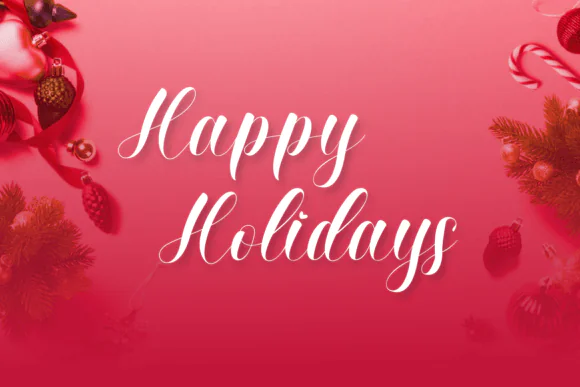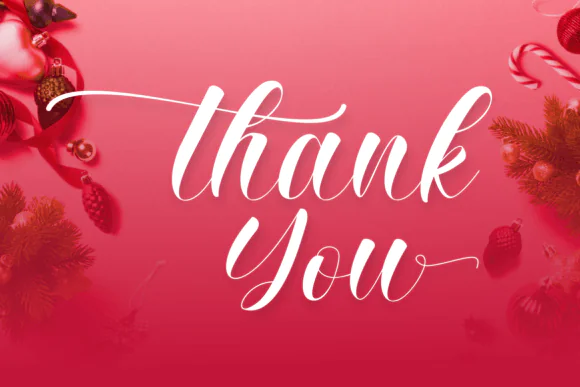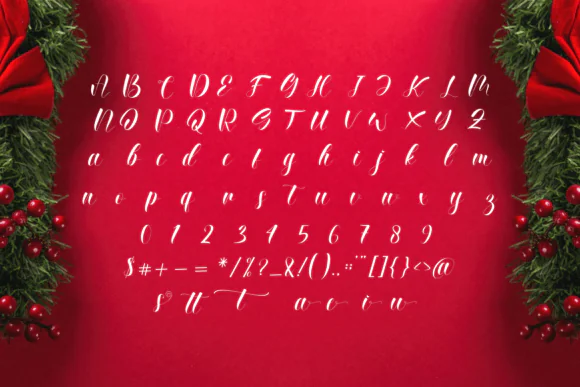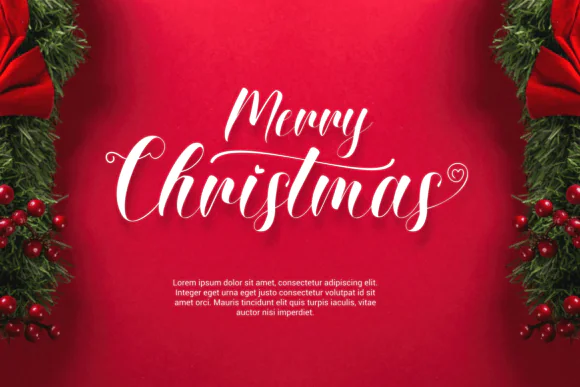
Create delicate, elegant, and beautifully balanced designs with Christmas Beauty Day Font, a graceful handwritten typeface made for projects that need a soft, refined, and artistic touch. With its distinct letterforms and well-balanced style, this font brings a polished handwritten look to both festive and everyday creative work.
Its delicate handwritten style makes it especially suitable for romantic designs, festive messages, feminine branding, boutique packaging, elegant social media posts, and heartfelt greeting card projects. Whether you are creating a Christmas quote design, refined wedding invitation, luxury logo, holiday gift tag, or beautiful printable artwork, Christmas Beauty Day Font adds charm, elegance, and a professional handmade feel to your typography.
This font’s versatile appearance makes it easy to use across many design styles, from warm holiday graphics to modern stationery and graceful branding projects.